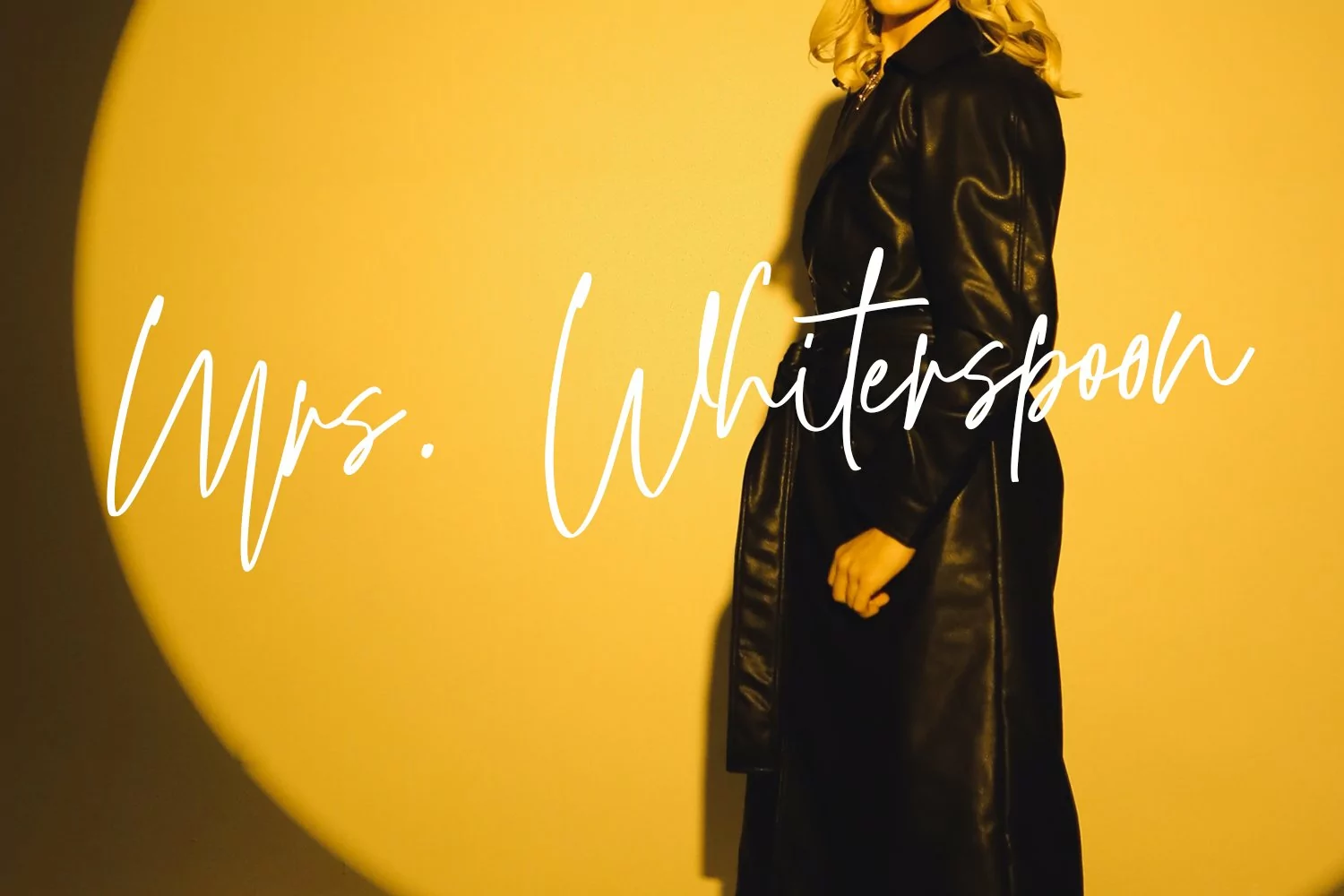
Mustardmoster is a casual script font, with light felt-tip stroke, slant and fun character. It has Opentype features ligatures of character, To give you an extra creative work. Mustardmoster script font support multilingual more than 100+ language. This font is good for logo design, Social media, Movie Titles, Books Titles, a short text even a long text letter and good for your secondary text font with sans or serif. Make a stunning work with Mustardmoster font.
Mustardmoster